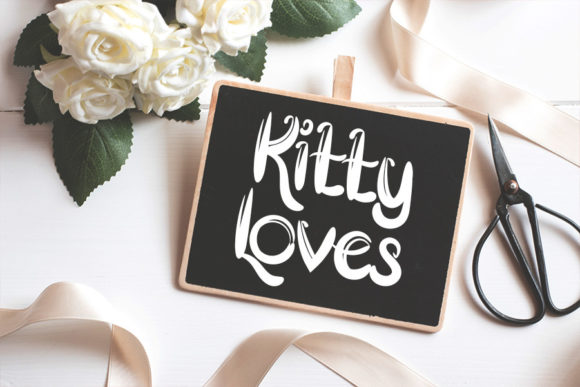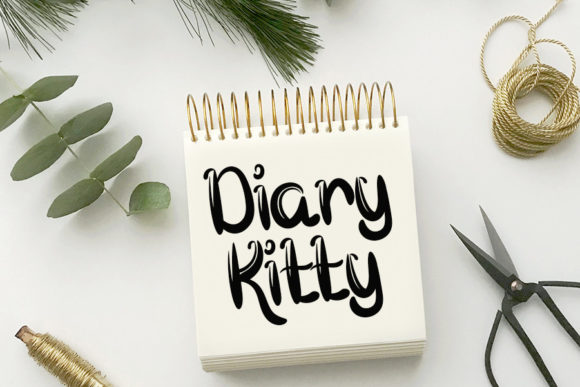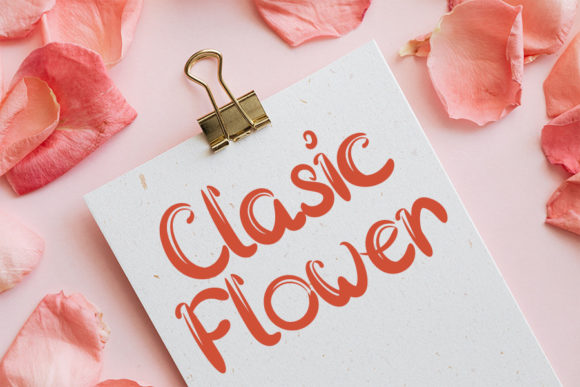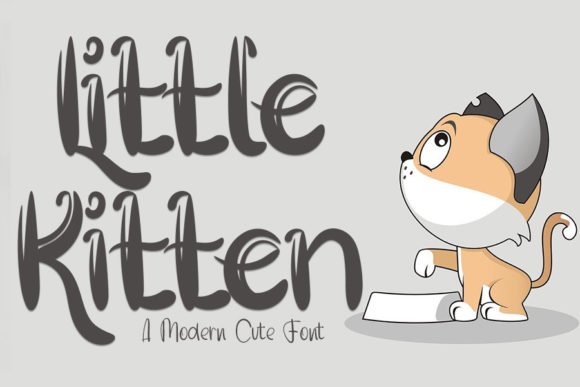
Introduction to Little Kitten Font
Little Kitten is a fun display font.
It features a cute and joyful style that will take your designs to the next level .
Key Features of Little Kitten Font
Why Choose Little Kitten Font?
Little Kitten Font offers exceptional quality and versatility, making it a valuable addition to your design toolkit. Whether you’re creating for personal projects or commercial use, Little Kitten Font delivers professional results.